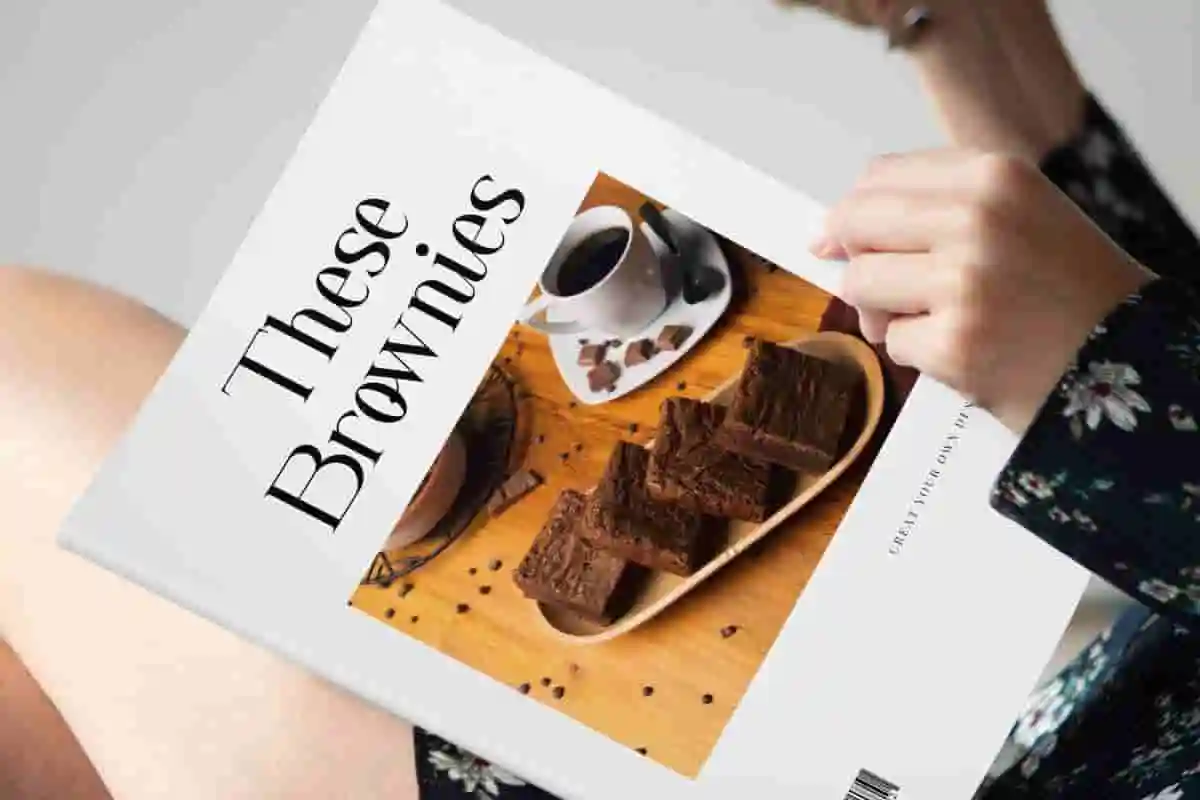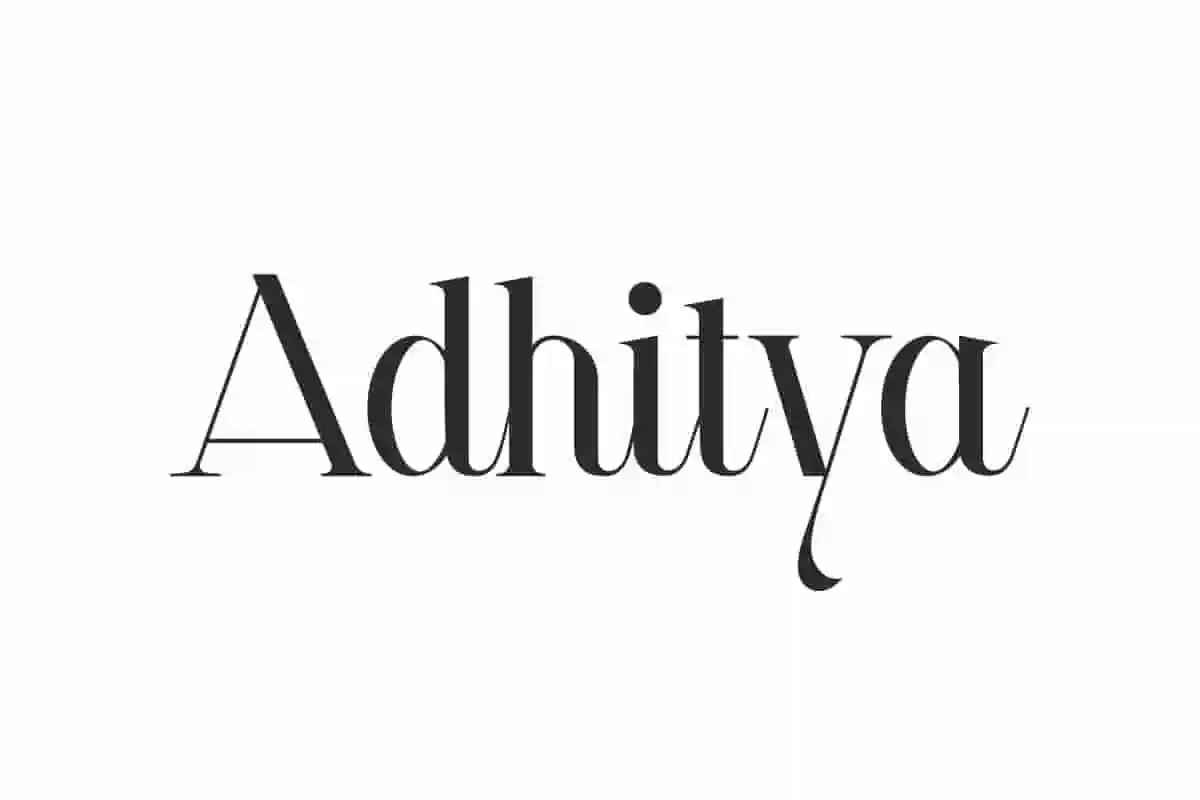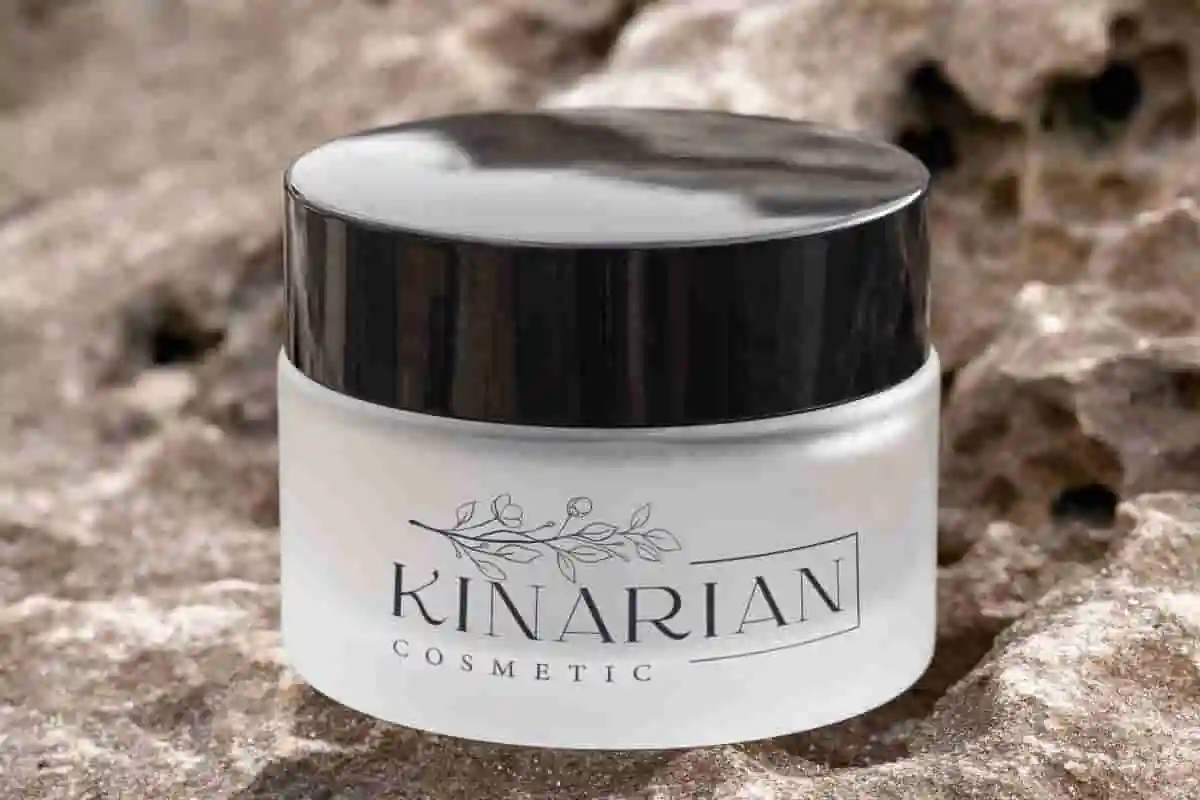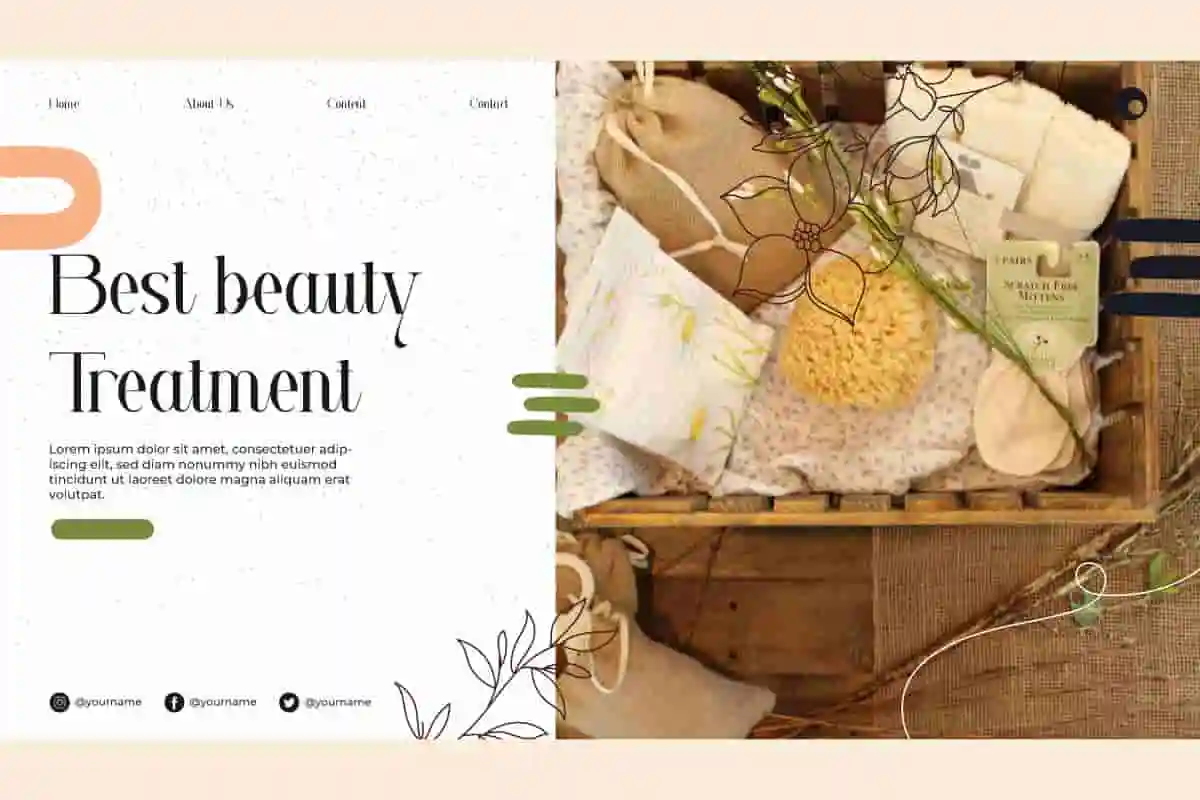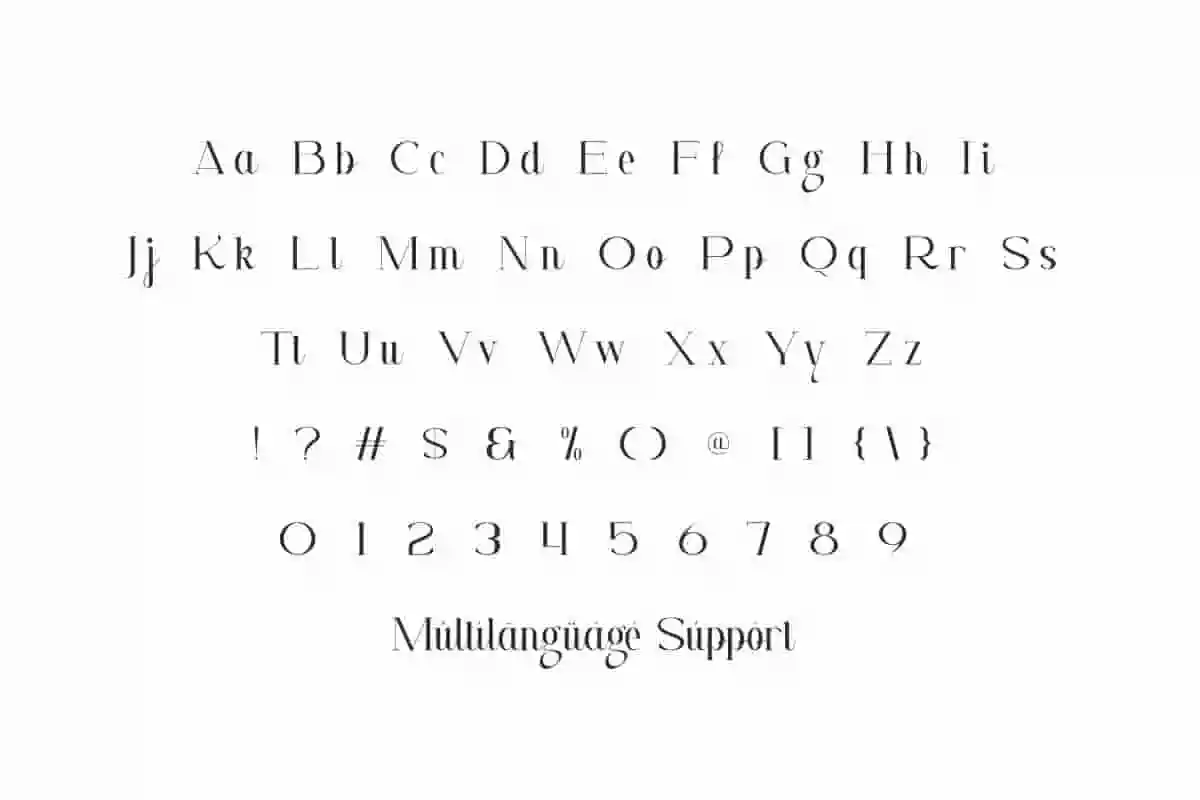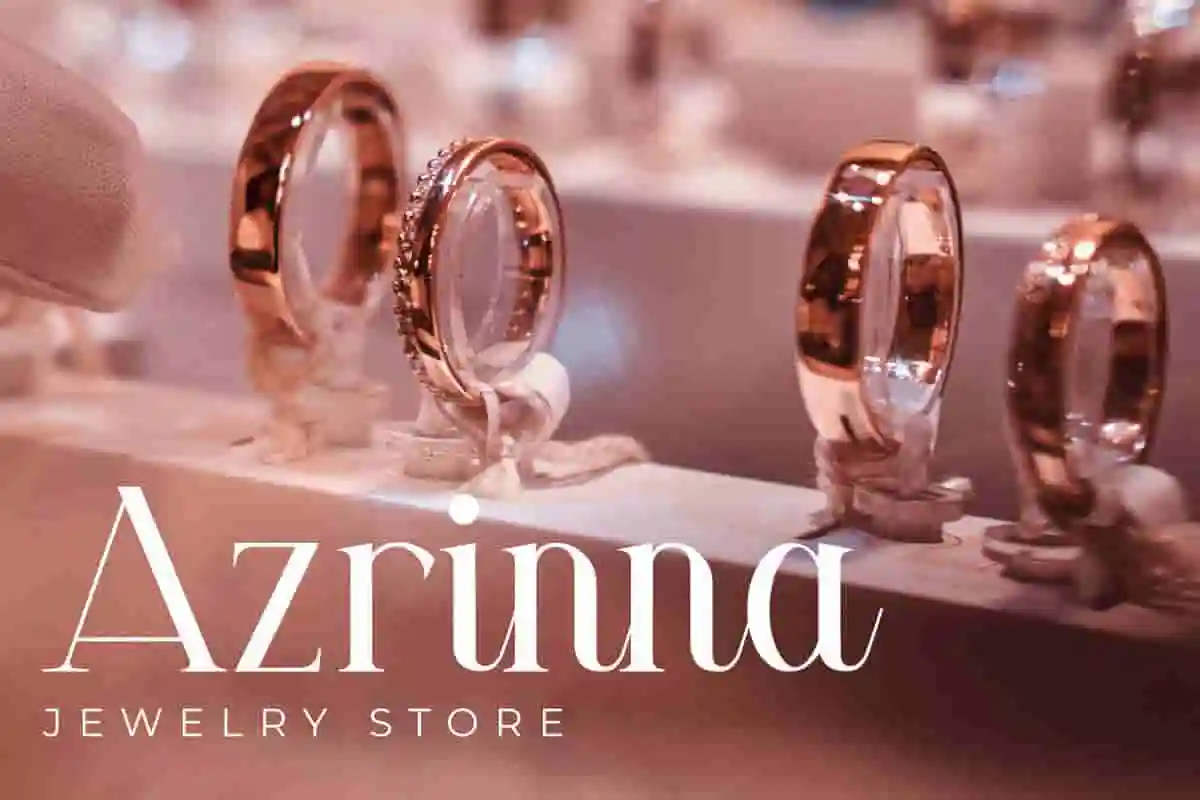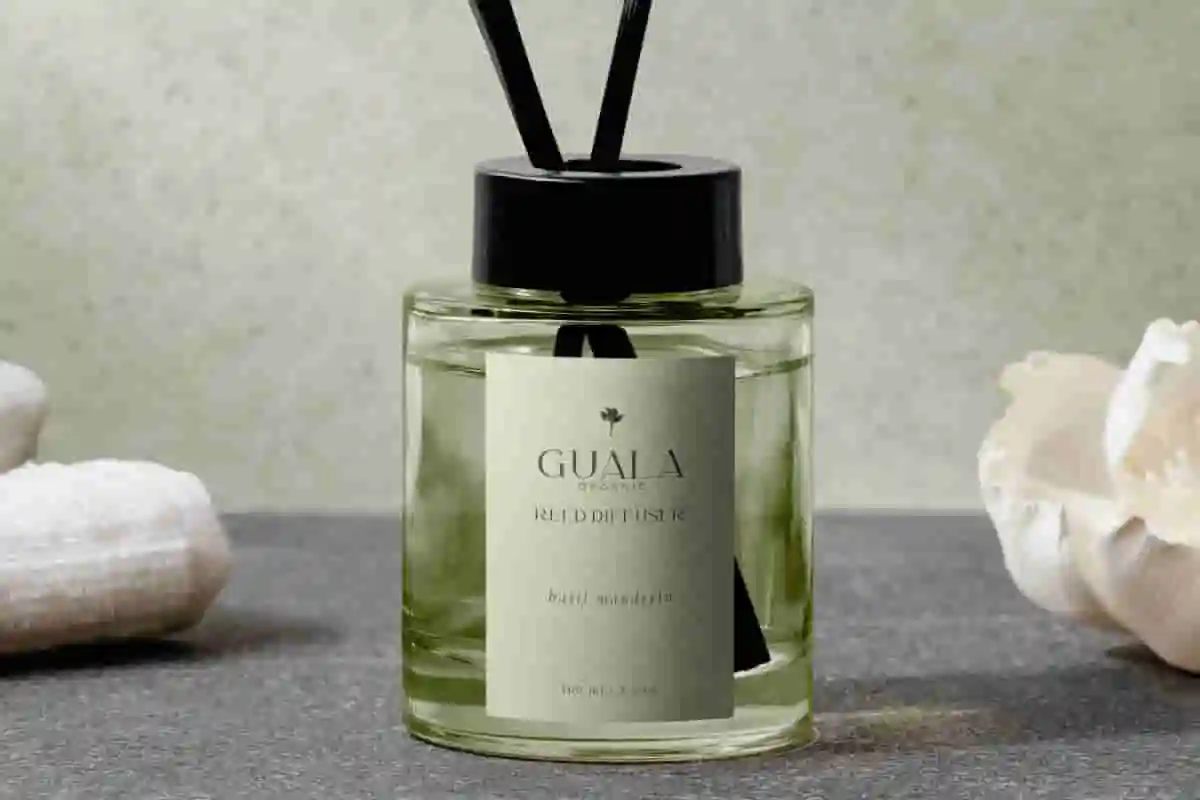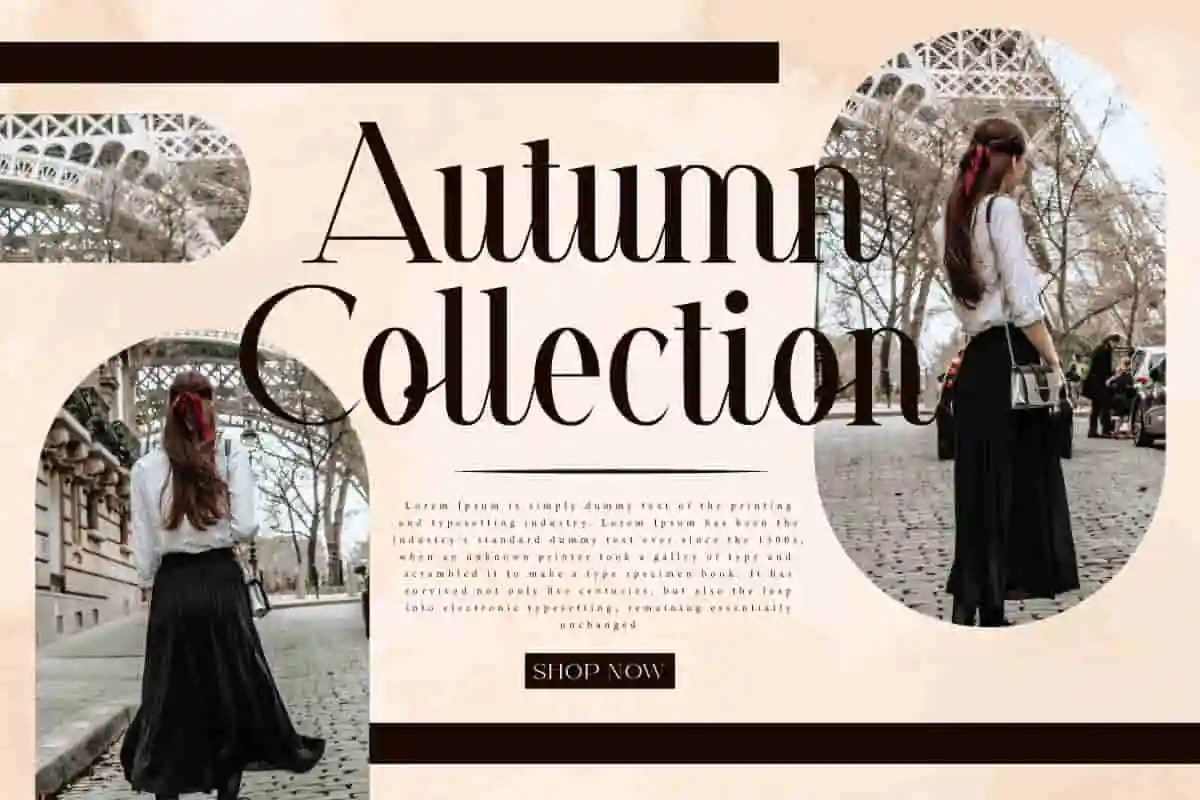
Adhitya Font is a stylish modern serif display font that will perfectly complement any of your creations. Ready to exude true elegance!
Adhitya Font is a modern stylish serif display font that will be able to make your business feel awesome, such as accessories, architect, bakery and pastry, clothing brand, cooking class, cosmetic, café, fashion designer, film, furniture, interior design, jewelry, photography, printing, publishing, real estate, restaurant, school, skincare, social media content, writer, and other things with a touch of class that flows.
Adhitya Font includes full set of Uppercase and Lowercase Basic Characters, Number, Punctuation, and Symbol. This typography will elevate your design and make it feel filled with elegance, such as apps, billboard, body text, brand logo, brochure, business card, cover, flyer, headline, product packaging, poster, quote, screen print, stamp, stationery, sticker, title, watermark, website, and many more.